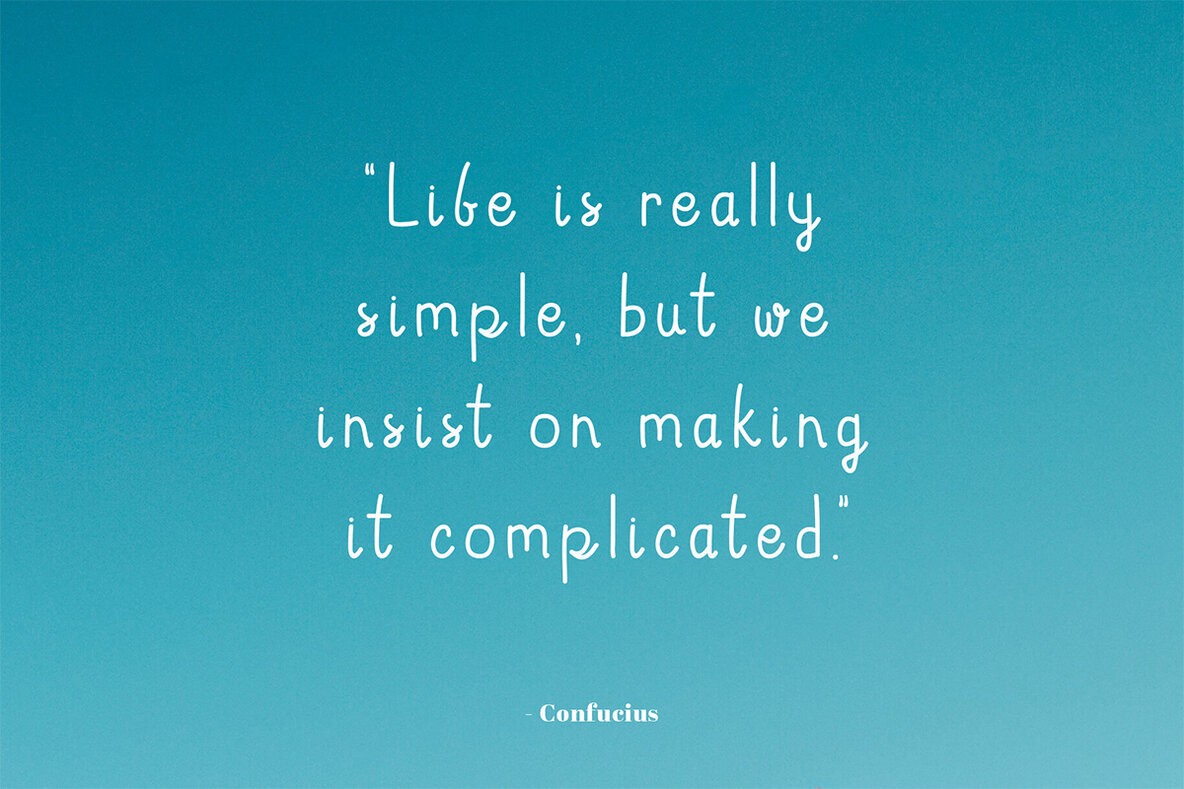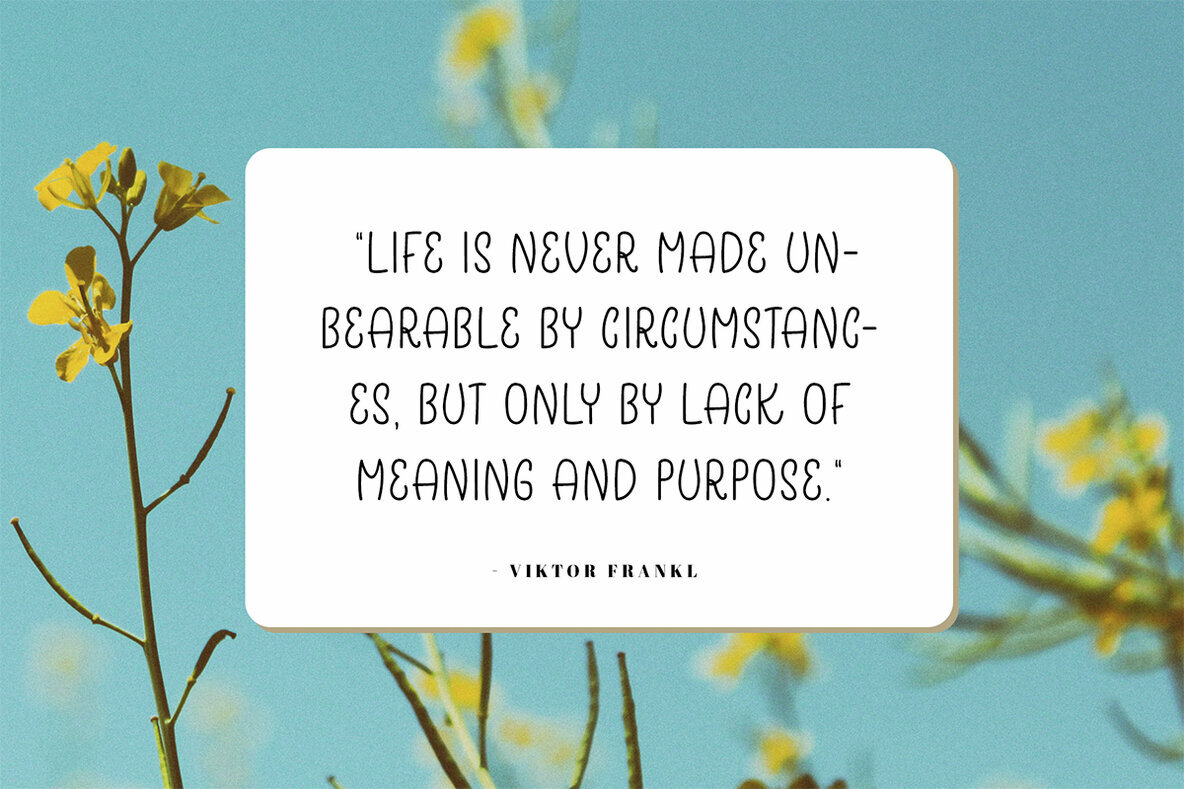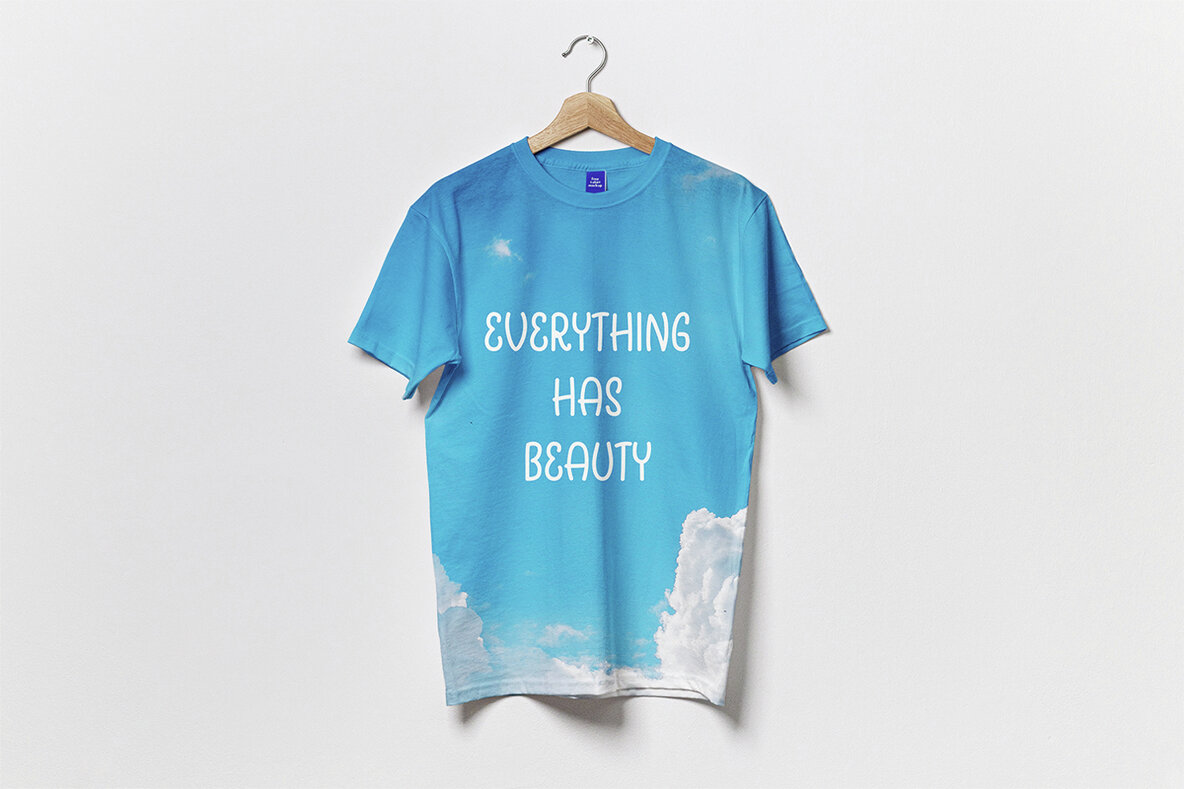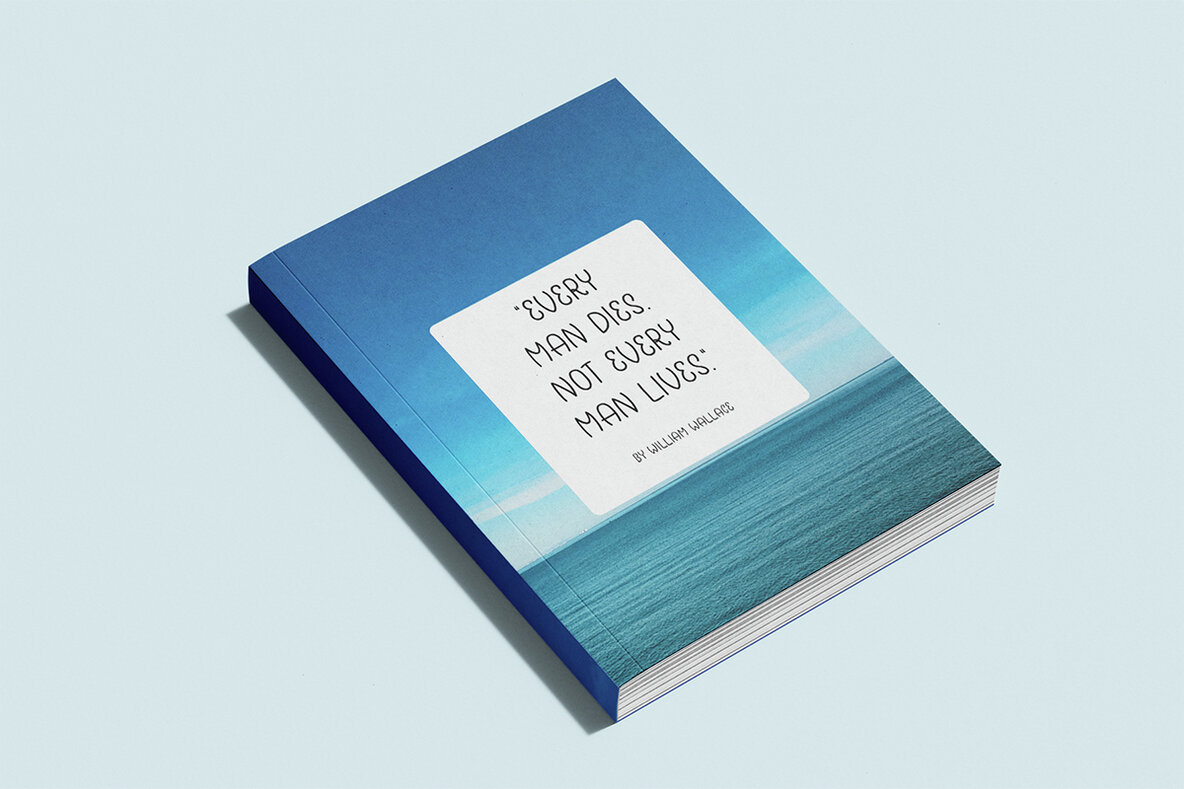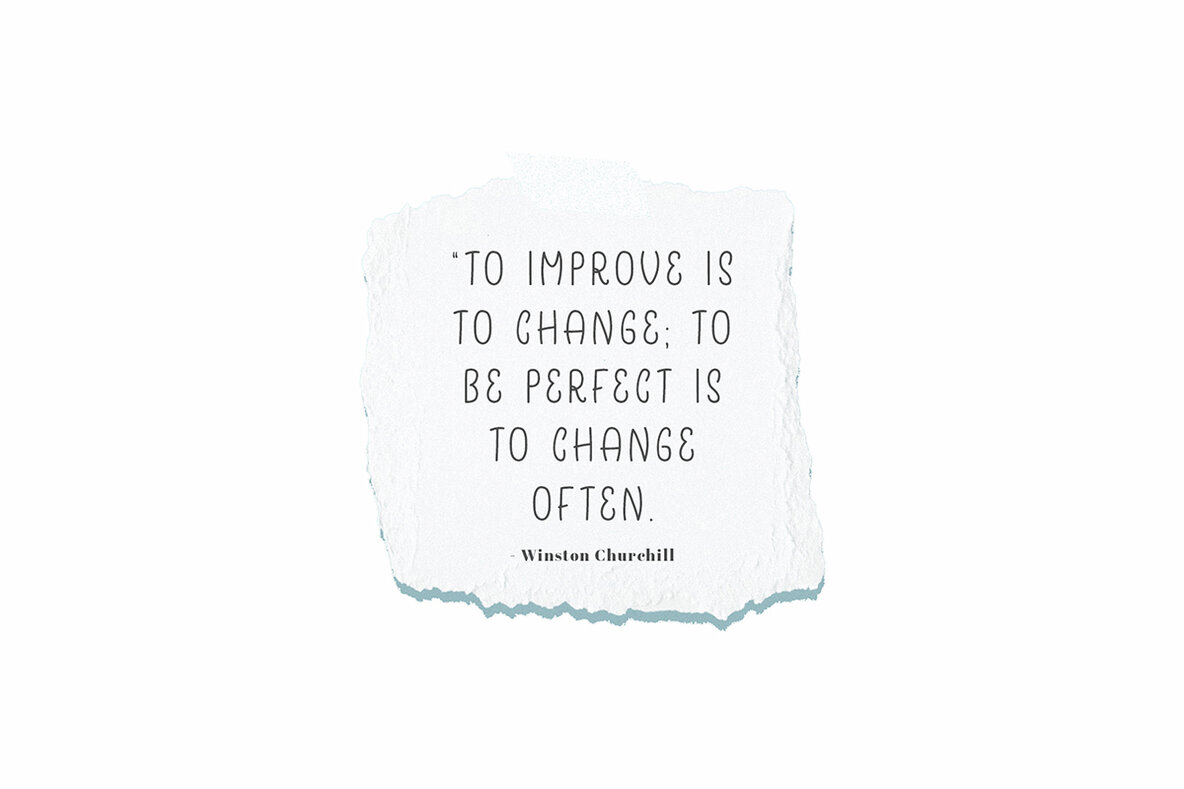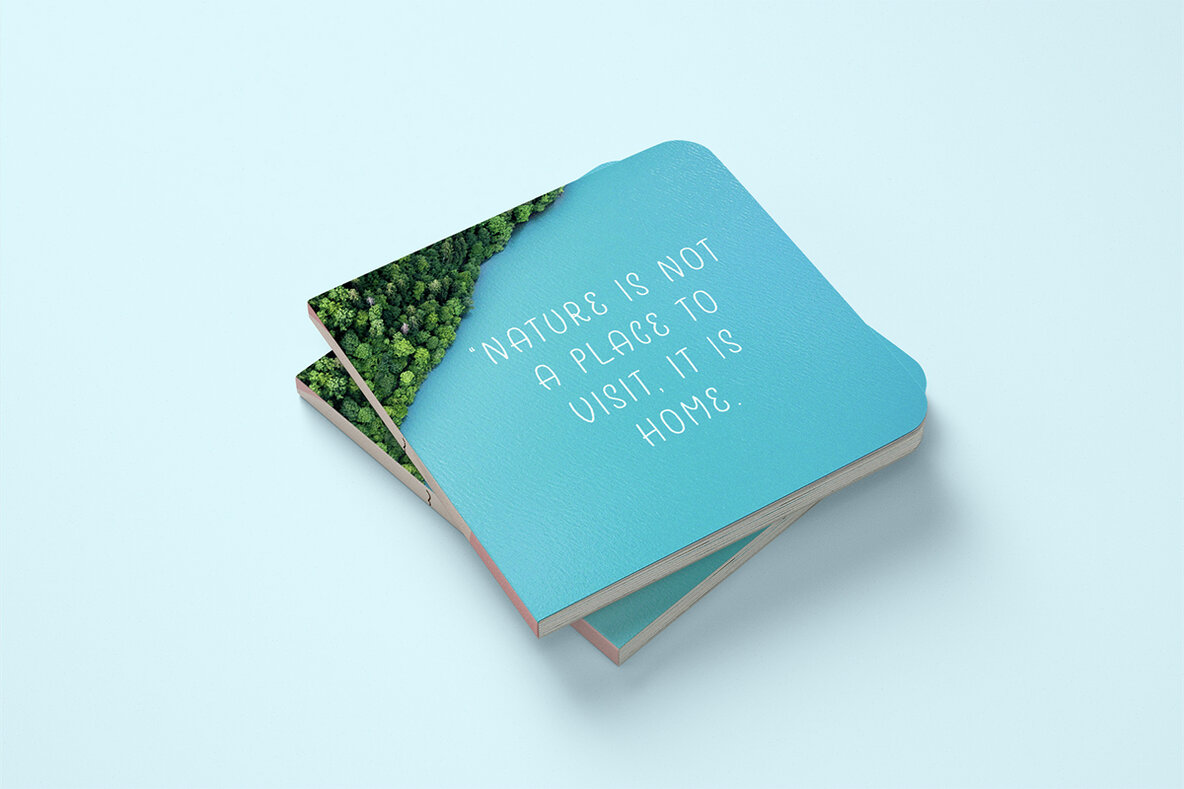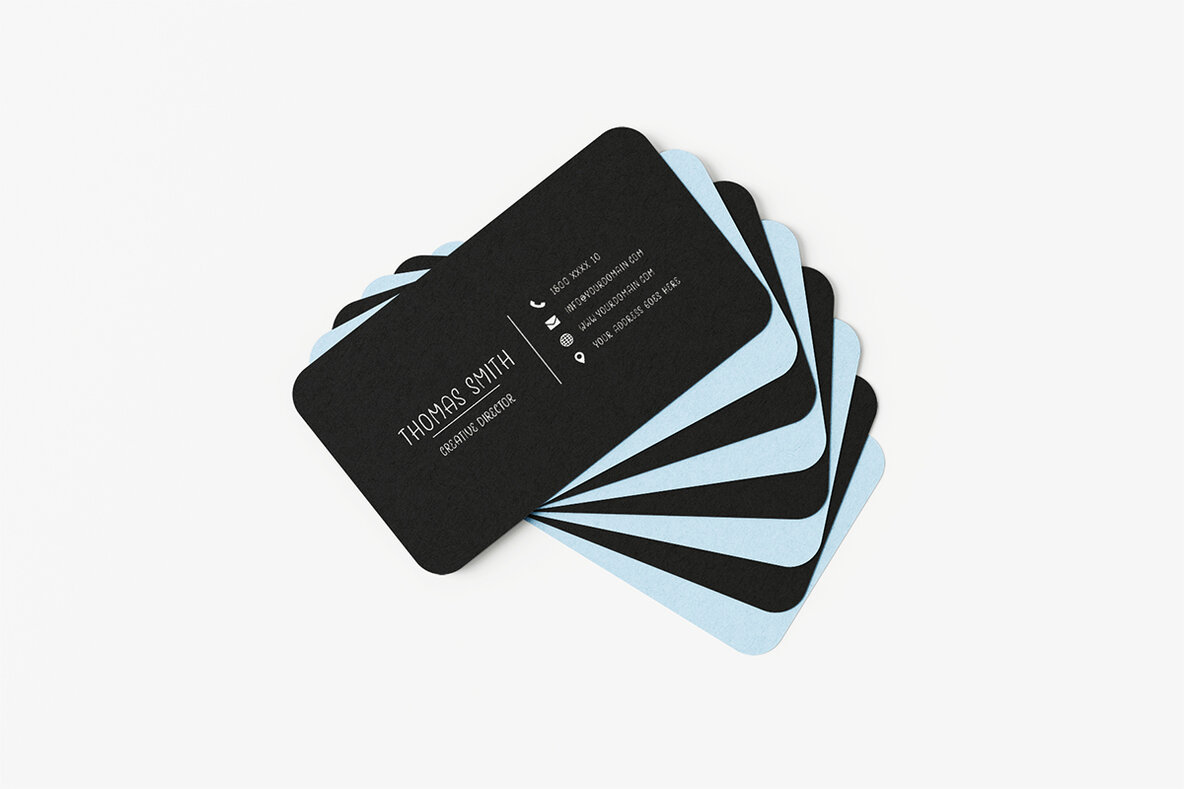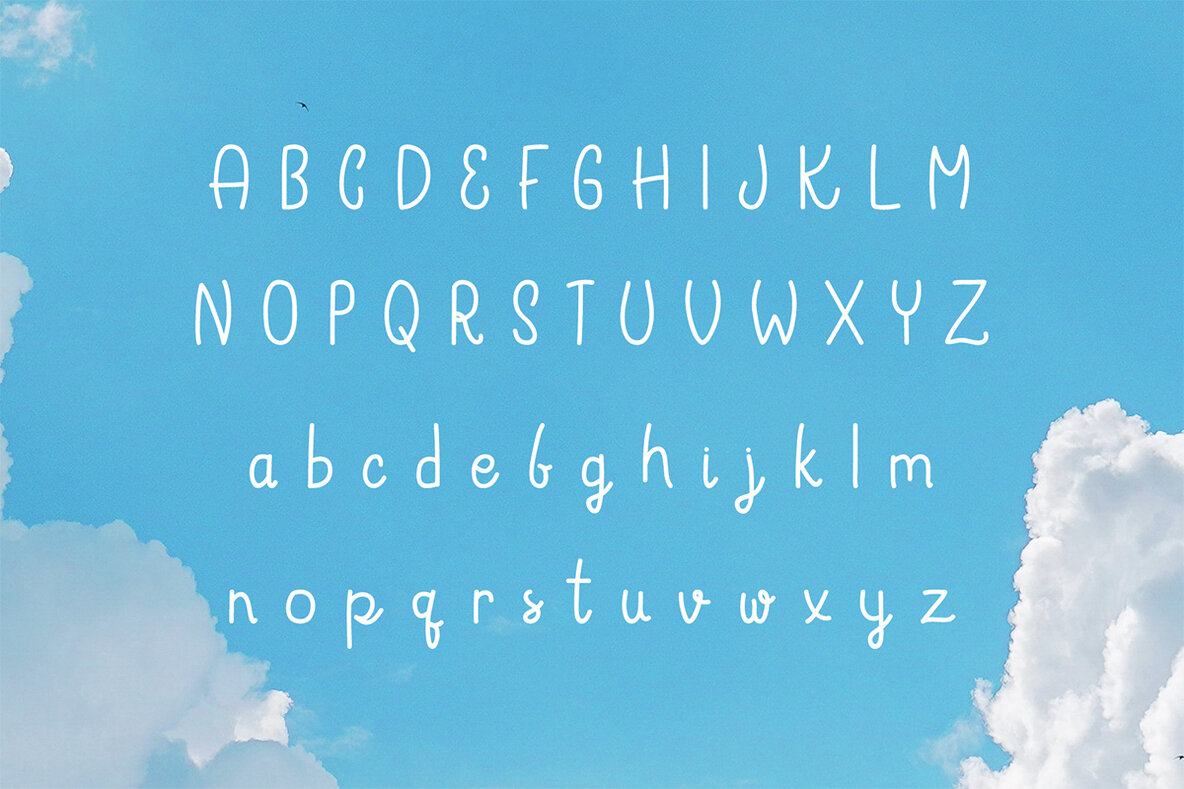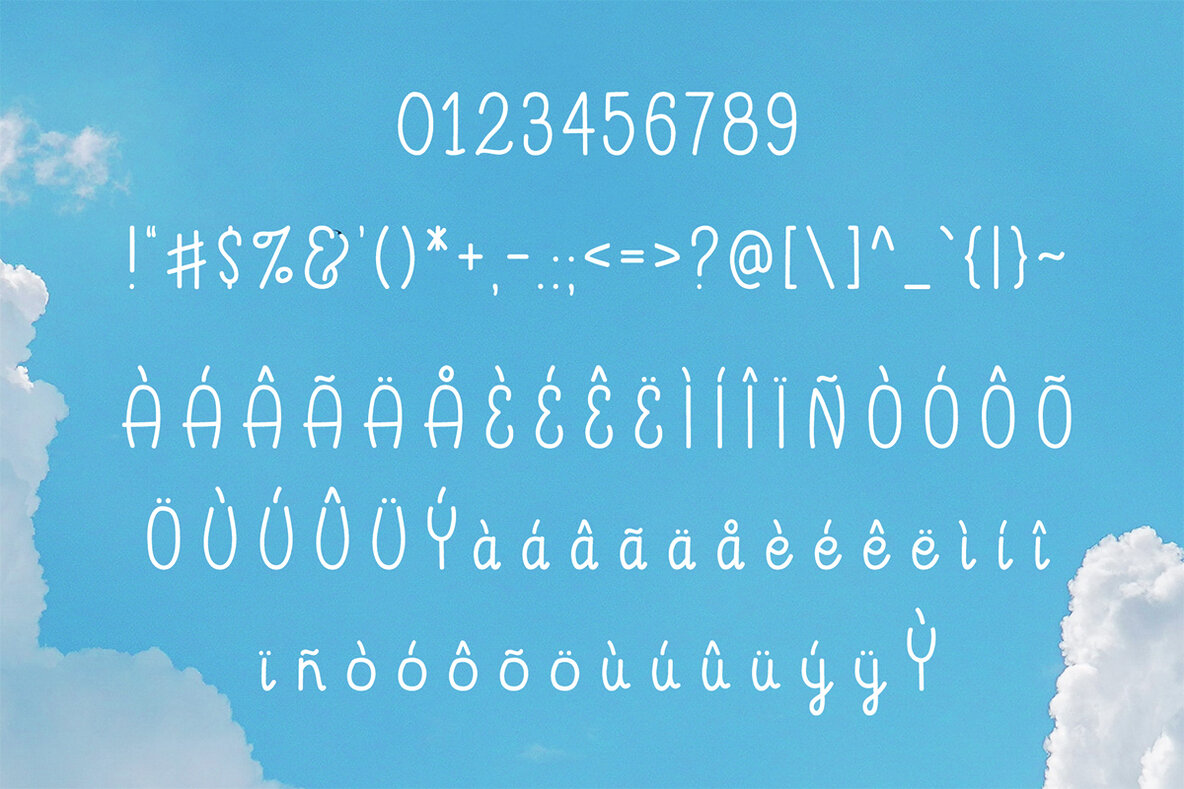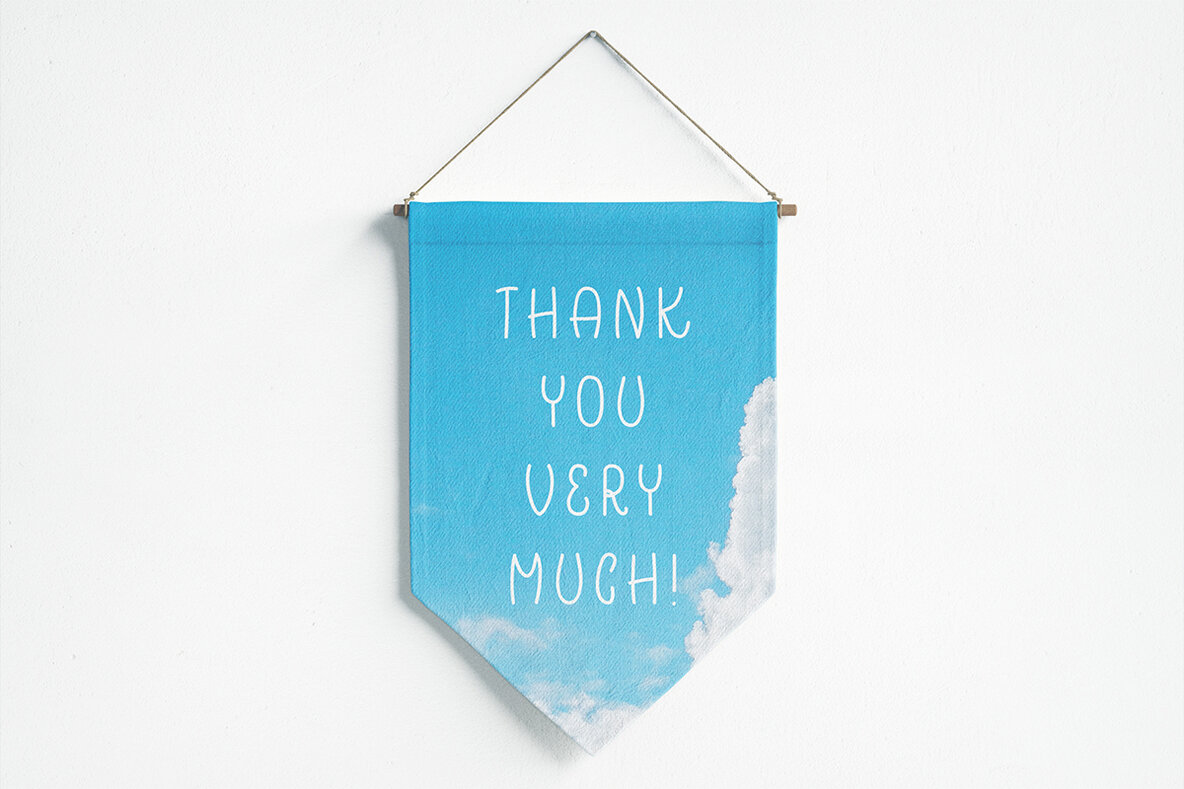
Cadby Font
Cadby Regular
Cadby Handmade Font is a casual and expressive font designed to enhance your creative projects. Its flowing style lends a unique charm to any design, making it a perfect choice for packaging, logos, headlines, posters, and invitations. This versatile font includes uppercase and lowercase letters, numbers, and a variety of punctuation and symbols. Ideal for web layouts, branding, quotes, and magazine titles, Cadby Handmade Font provides flexibility for almost any design task.
With its comprehensive character set, Cadby offers everything you need for complex design projects. The included characters are: A-Z, a-z, 0-9, and an extensive range of punctuation marks and symbols. This font stands out for its ability to adapt to numerous design applications, from advertising and presentations to book titles and web layouts. If you're looking to add a touch of casual elegance and creative flair to your work, Cadby Handmade Font is your go-to option.